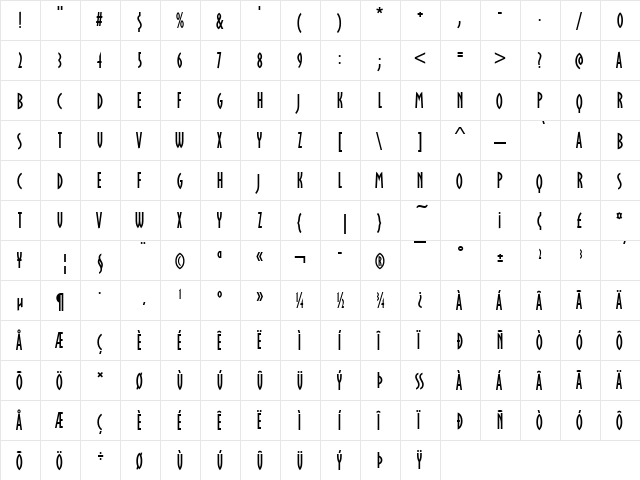
Becker Oklahoma Regular Font Preview
Becker Oklahoma Regular
Becker Oklahoma Regular Font Details
Design Context for Becker Oklahoma Typeface
Becker Oklahoma is a composed and adaptable typeface that performs quietly and consistently across a wide range of design contexts.